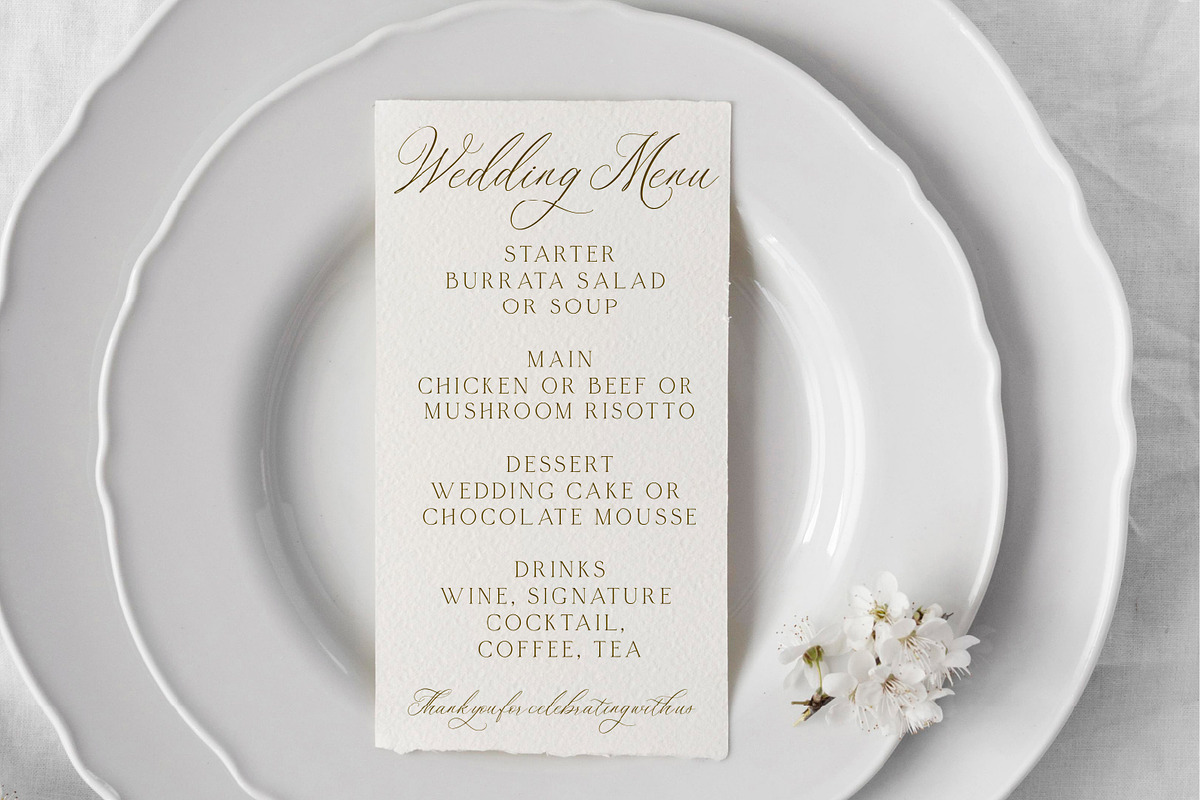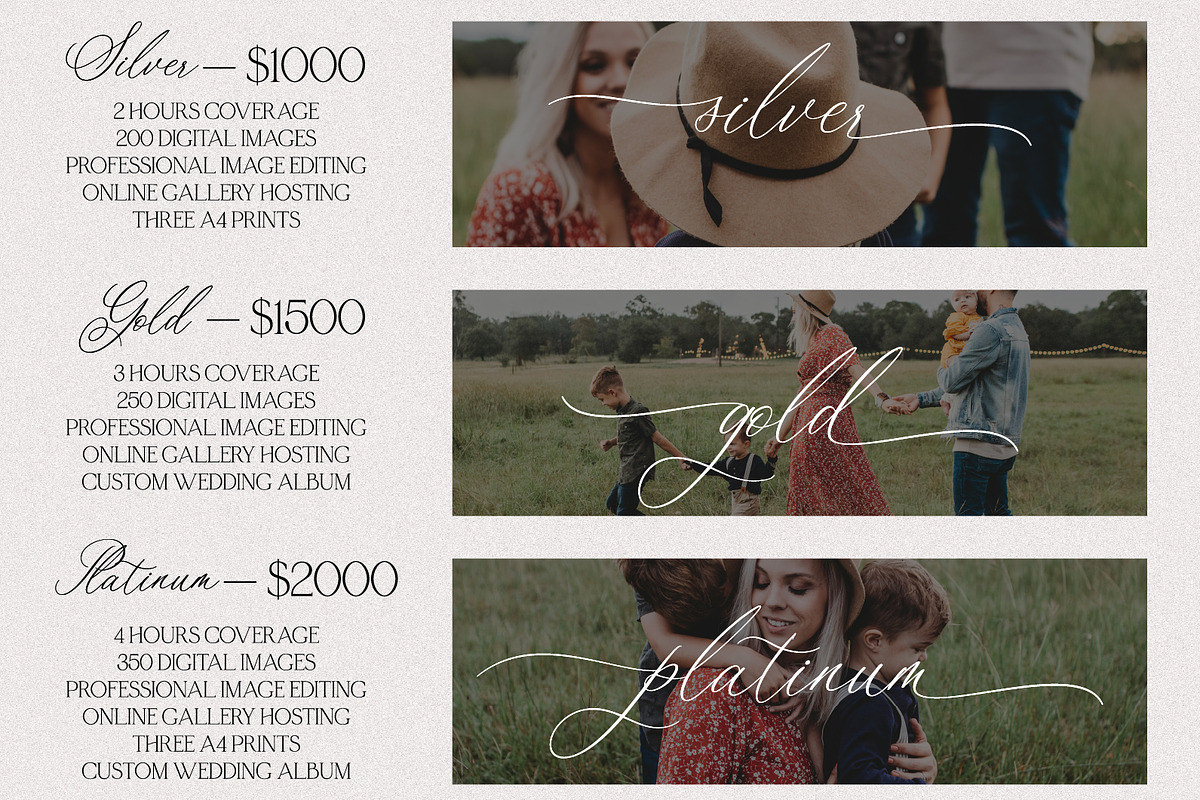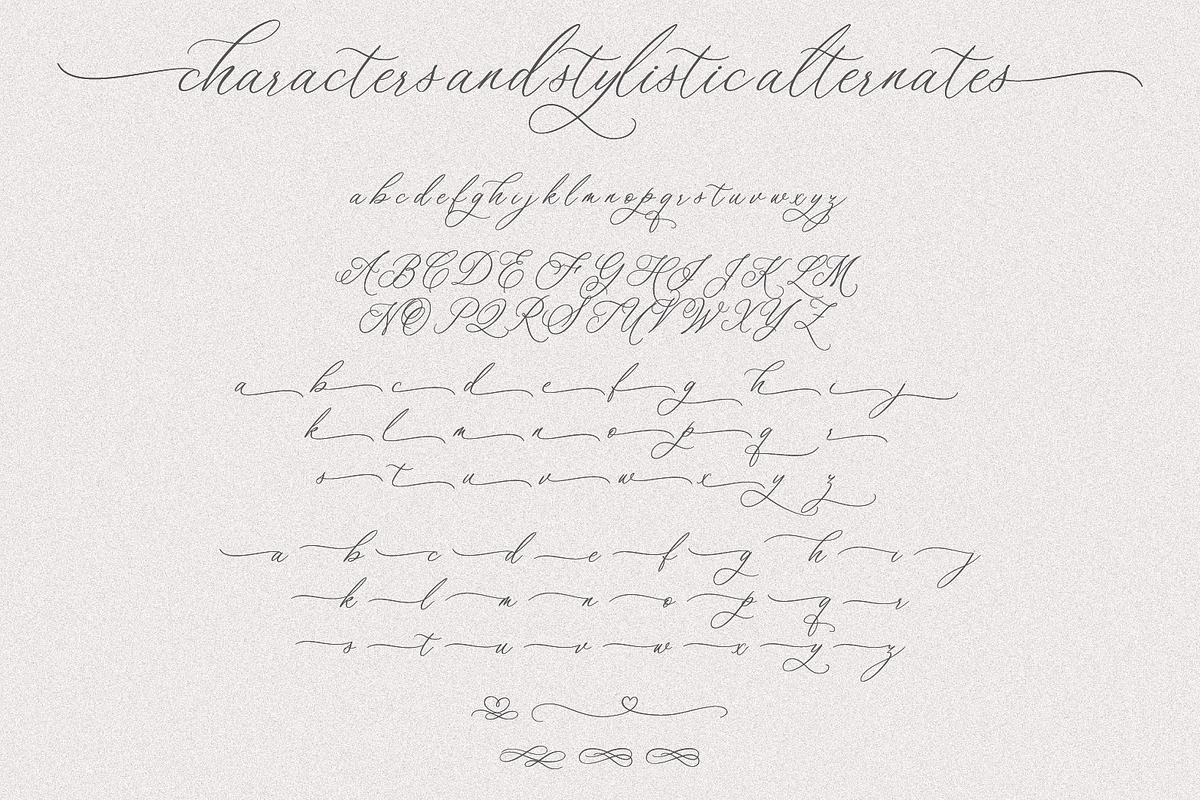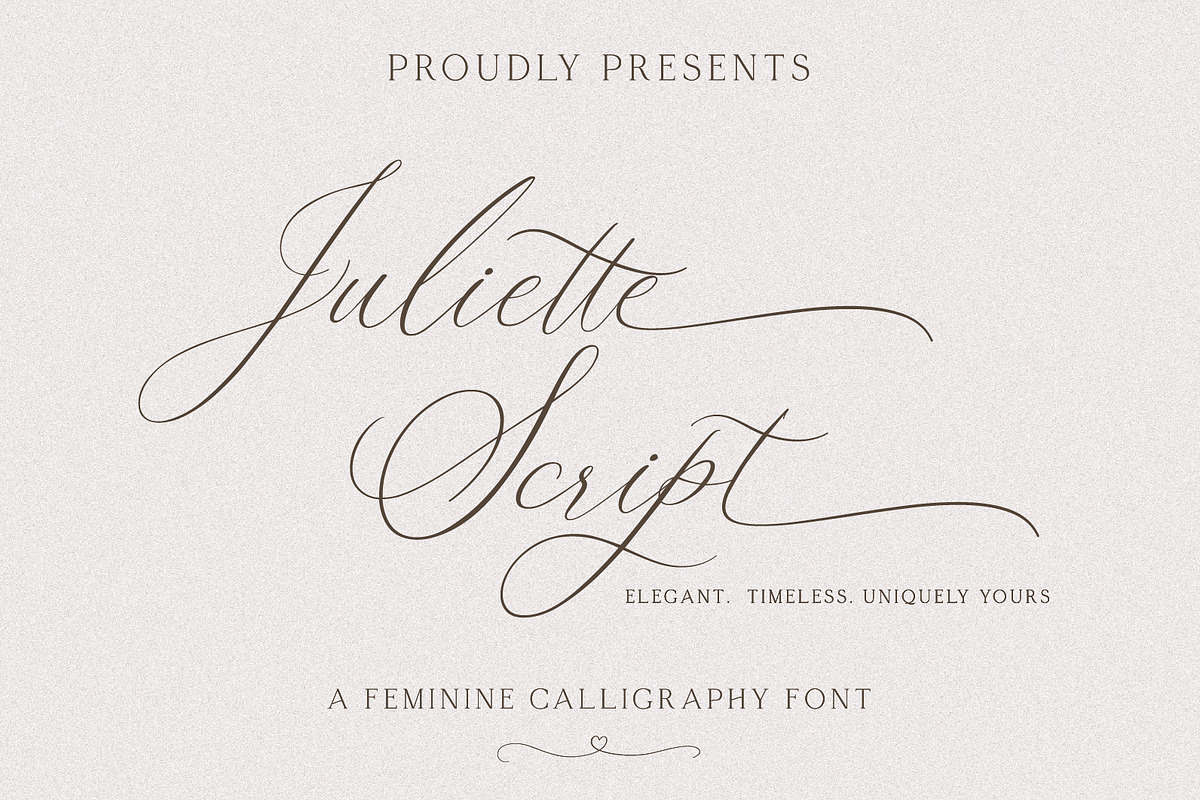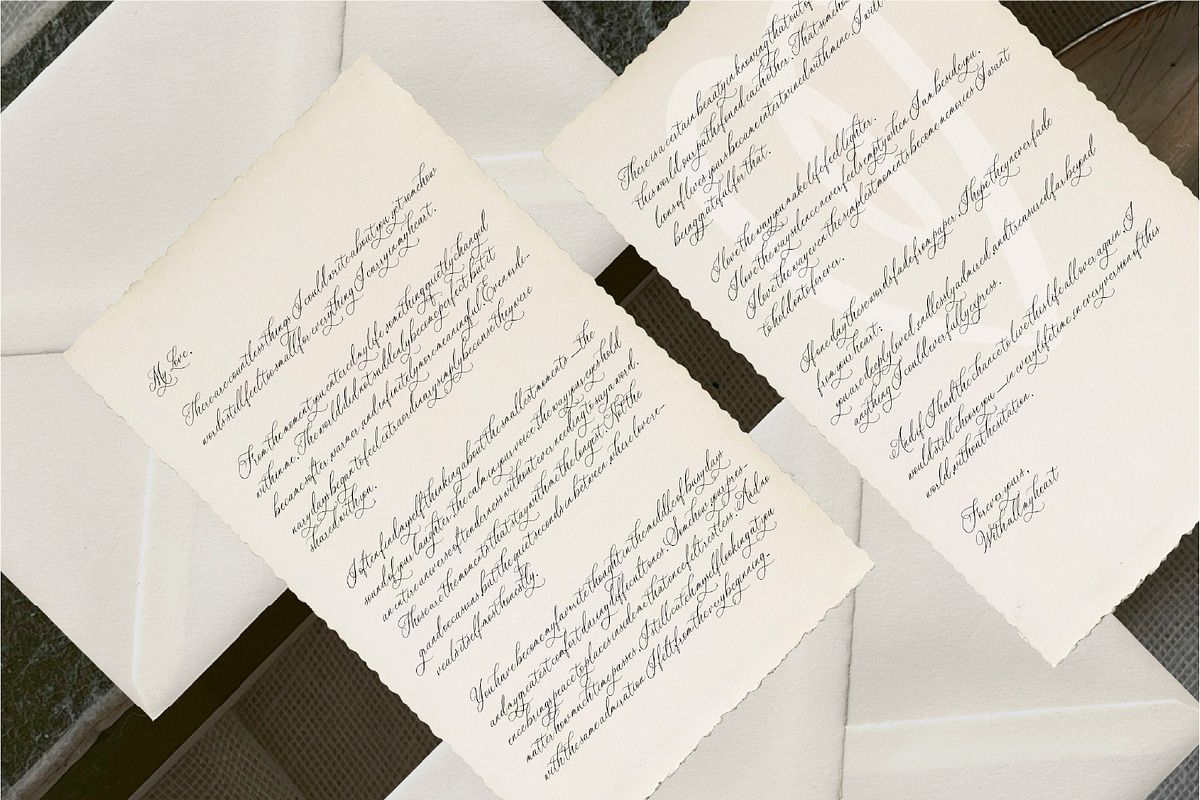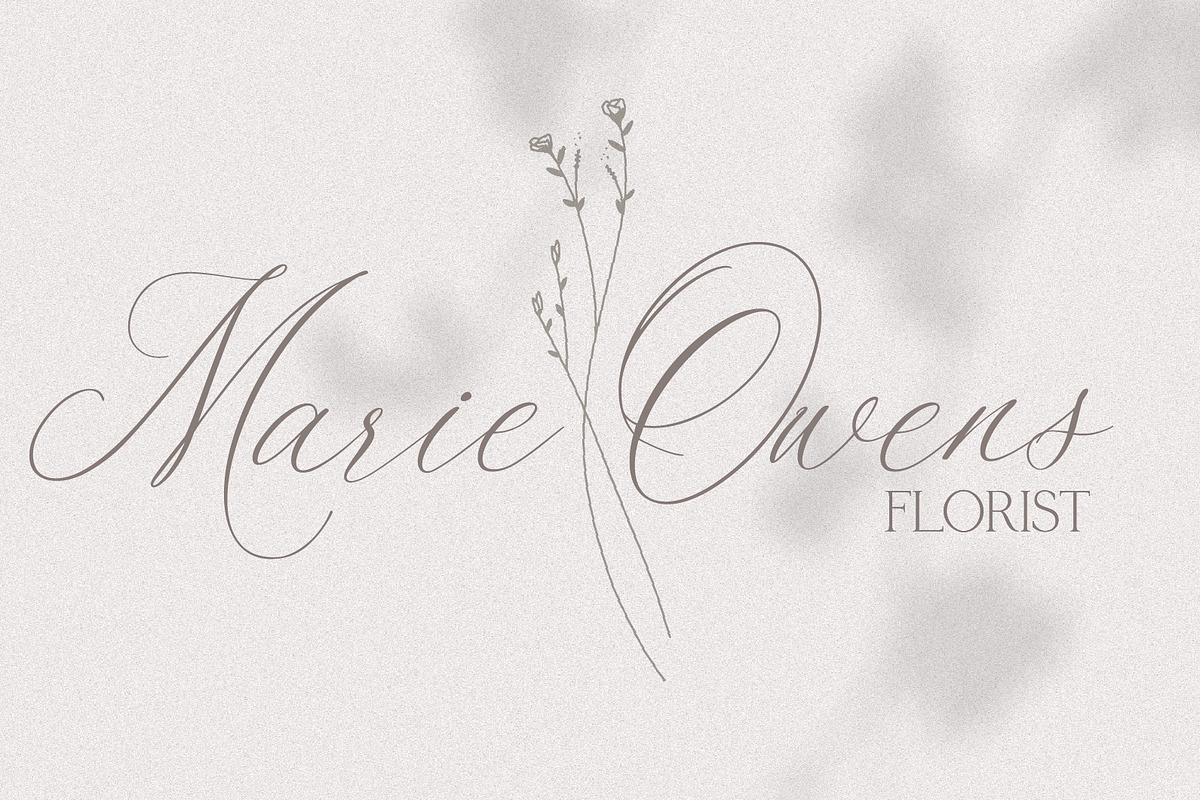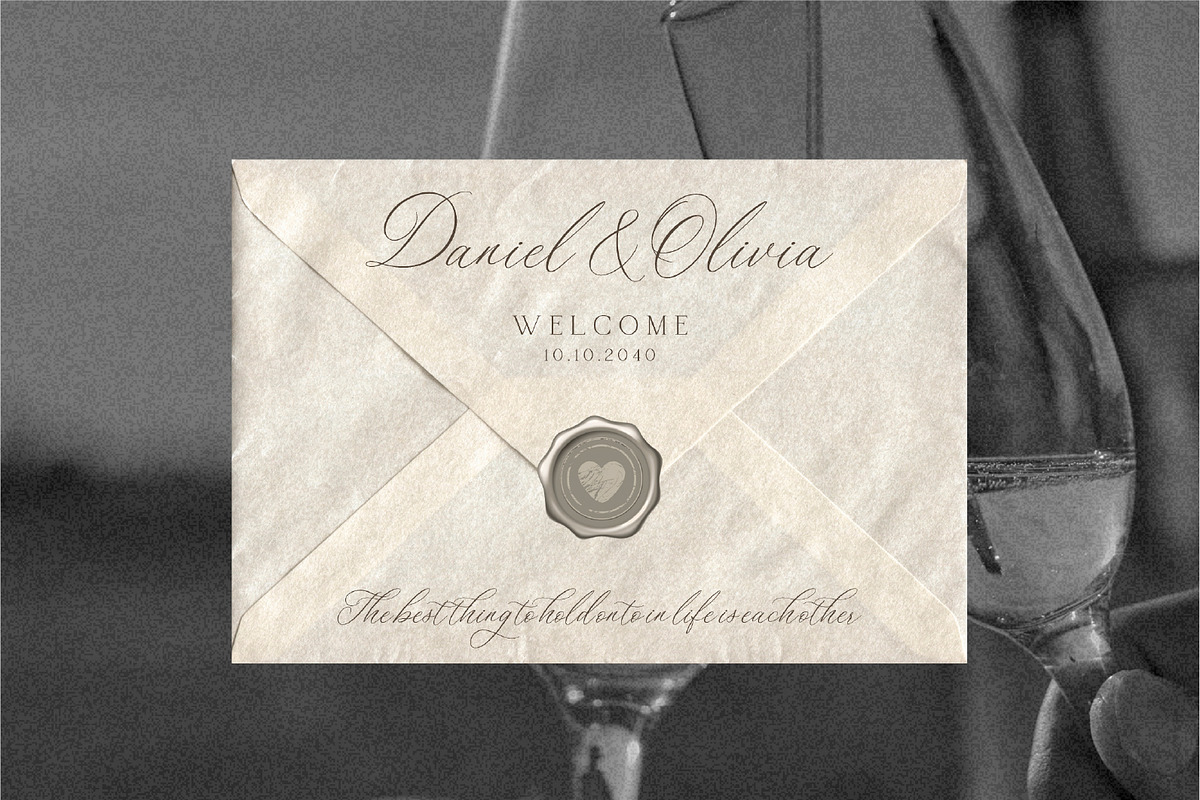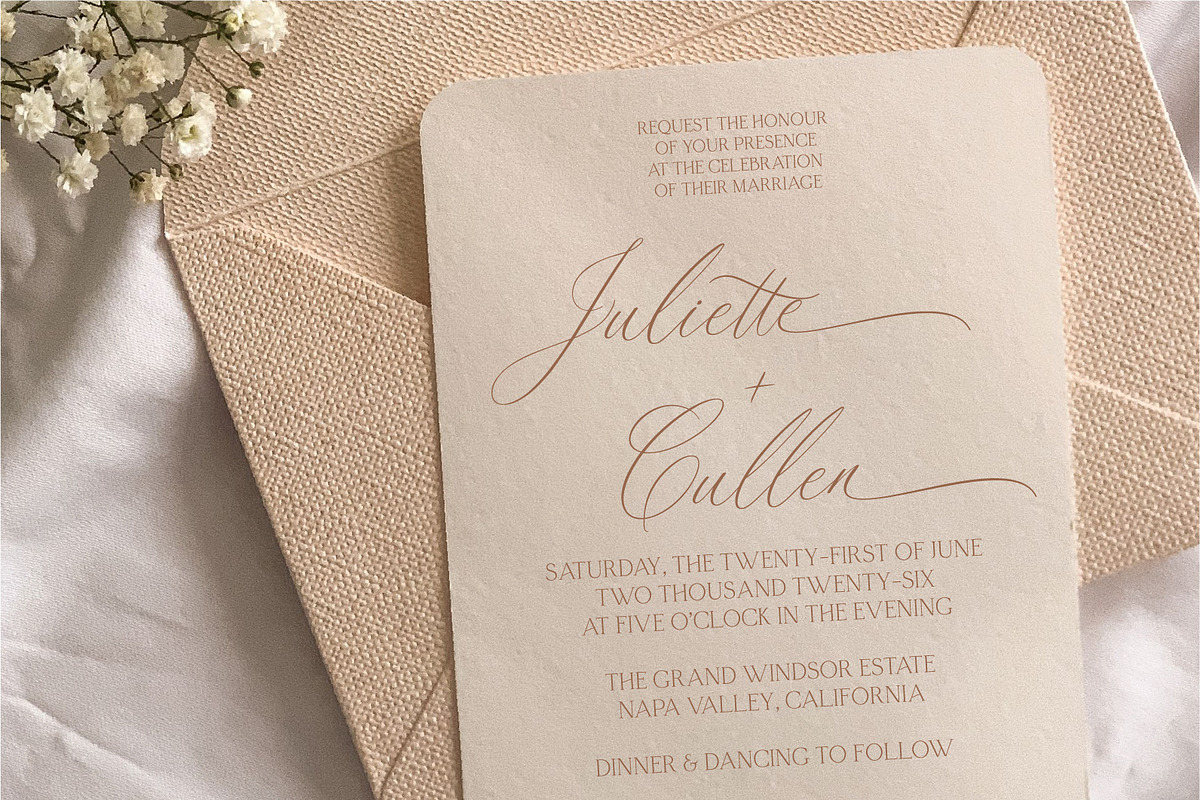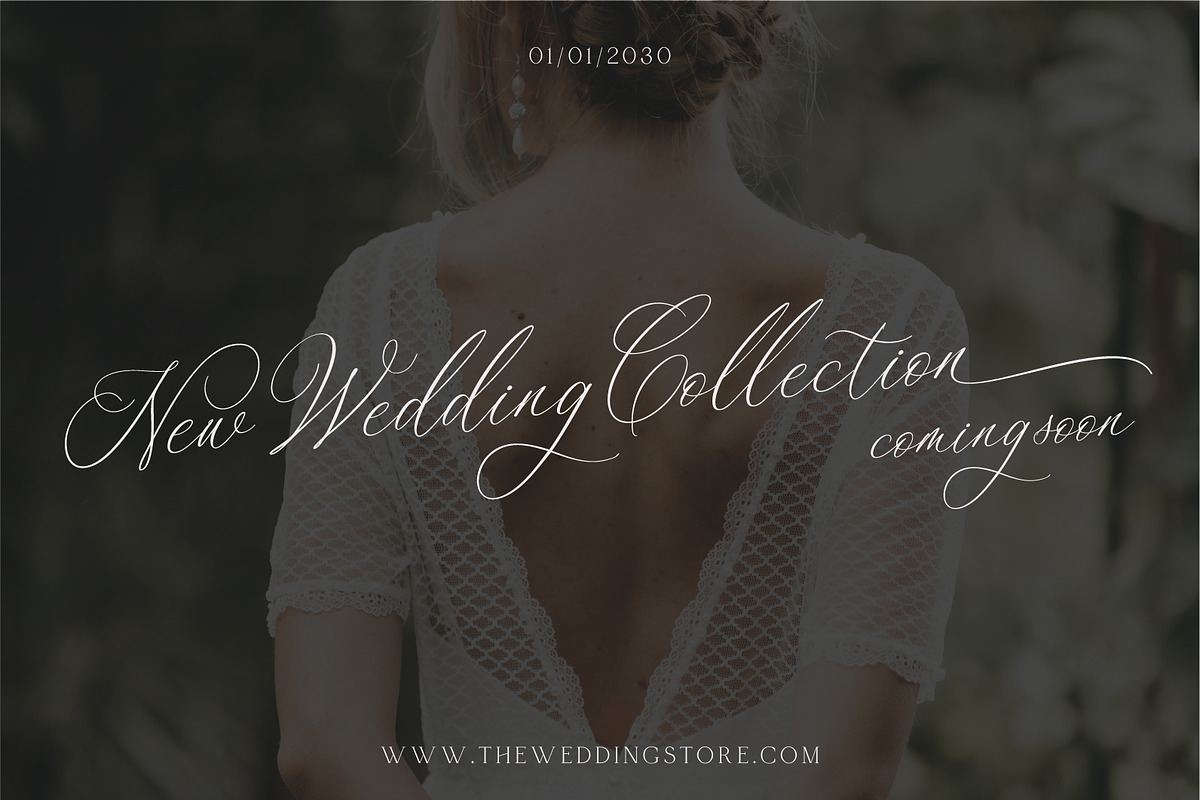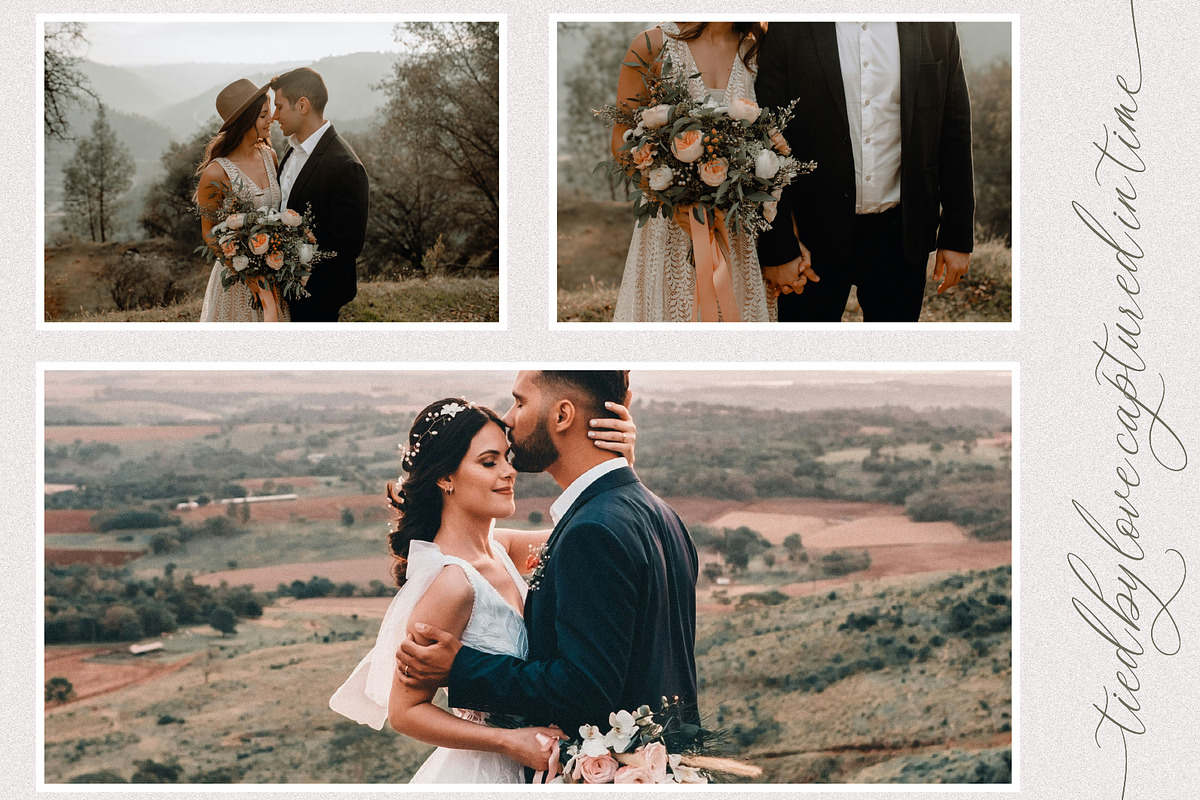
Juliette Script
Add a touch of timeless romance to your designs with this luxurious wedding calligraphy font, crafted for designers, brides, creatives, and small business owners who love elegant typography. Featuring graceful curves, delicate strokes, and beautifully flowing letterforms, this feminine script font is perfect for creating a soft, sophisticated, and high-end aesthetic.
Designed with left and right swashes for A–Z, this font allows you to create endless custom combinations and beautifully styled lettering with a bespoke calligraphy feel. Perfect for wedding invitations, welcome signs, menus, place cards, logos, branding, packaging, social media, and luxury stationery.
Whether you're designing for a romantic wedding, feminine brand, or elegant event, this script font brings effortless beauty and sophistication to every project.
• Uppercase & Lowercase Letters
• Numbers & Punctuation
• Lowercases (a-z Left & Right Swash Alternates)
• Elegant Ligatures & Stylistic Alternates
• Multilingual Support
PERFECT FOR:
• Wedding Invitations
• Bridal Branding
• Welcome Signs
• Logos & Packaging
• Luxury Stationery
• Photography Watermarks
• Social Media Graphics
• Feminine Branding
• Greeting Cards & Quote Designs
Juliette Script was created to deliver a romantic, editorial, and luxury calligraphy look—ideal for anyone wanting typography that feels feminine, graceful, and unforgettable. Simply install and start designing beautiful, high-end creations in minutes. ✨